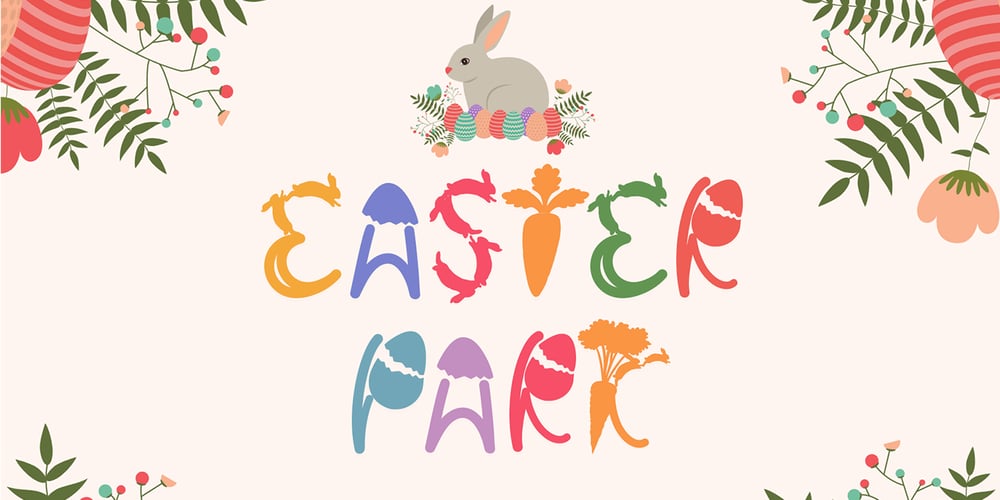
Easter Park Font Family was designed by Isroni Yoga Prasetya and published by Yoga Letter. Easter Park contains 1 styles and family package options. “Easter Park” is a very cute display font and is perfect for your Easter moments. This font is equipped with uppercase letters, lowercase letters, alternate uppercase letters, multilingual support, symbols and numbers. This font is very easy to use and there is already a user guide in the preview. Can also be used for posters, stickers, banners, logos, covers, movie titles, and more.